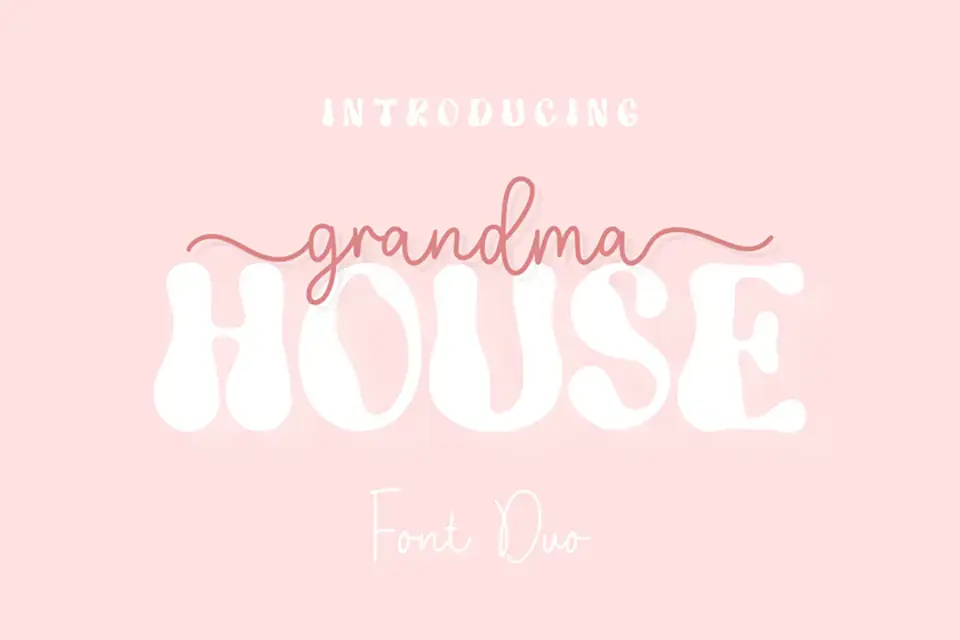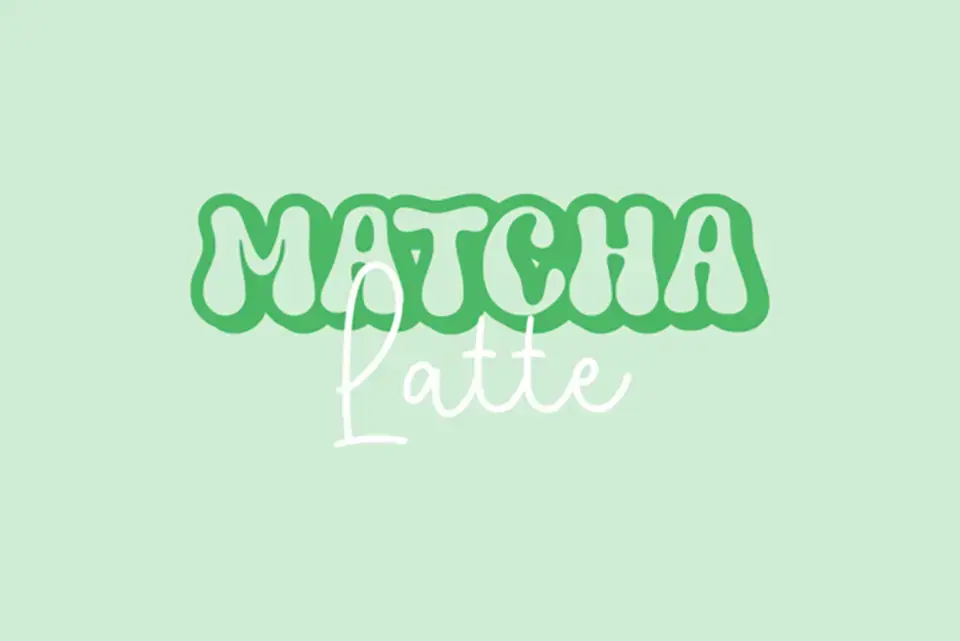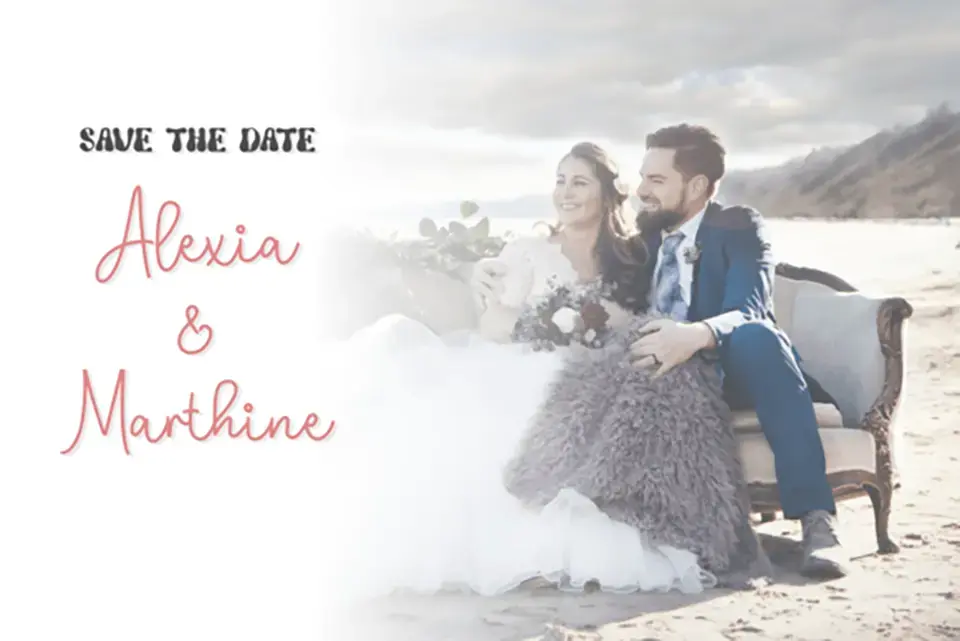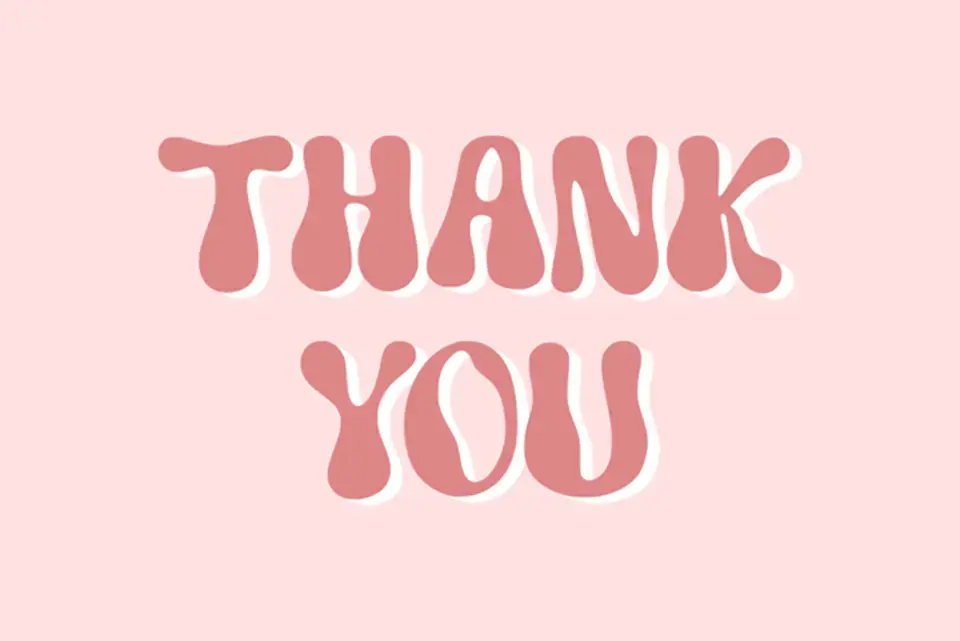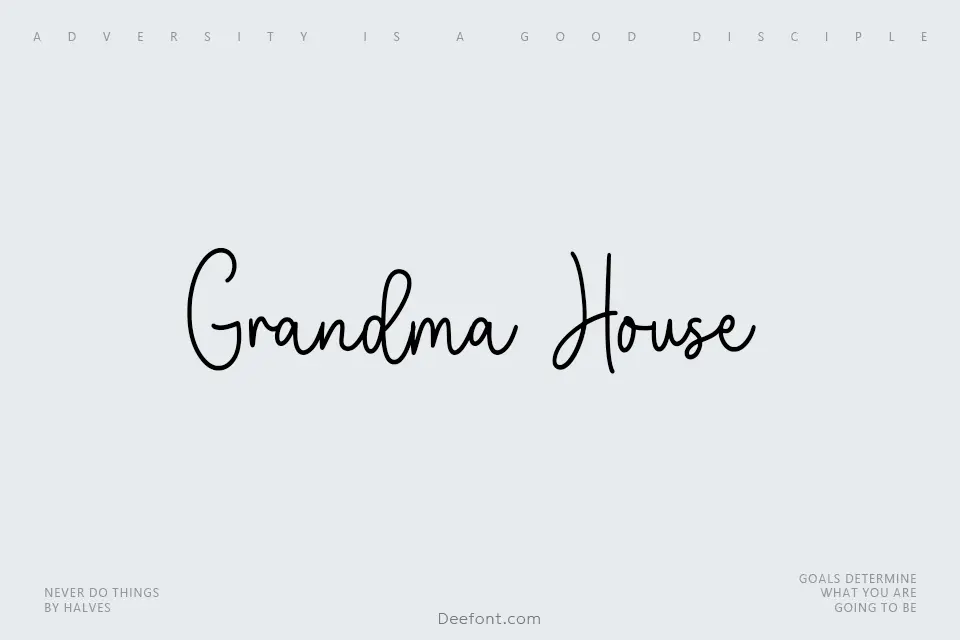
Grandma House Font
Grandma House Font is a charming handwritten script typeface delivering delightful decorative appeal for contemporary design projects. Its fluid, organic letterforms feature gentle curves and casual strokes that evoke nostalgic warmth while maintaining modern sophistication. The playful character set excels in wedding invitations, event posters, festive announcements, logo design, and social media graphics, offering designers versatility across both print and digital applications. Perfect for projects demanding personality and handcrafted authenticity.